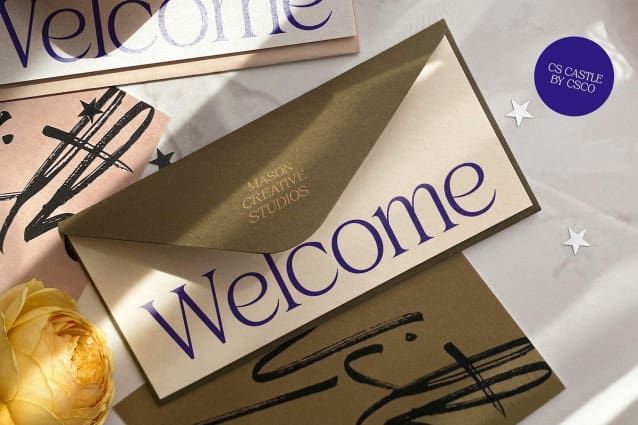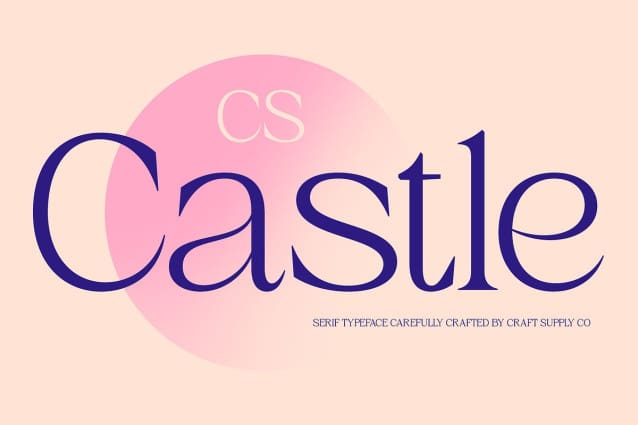
CS Castle Font
CS Castle Font is a modern serif font designed with elegant and graceful attributes. It features slim, refined serifs and clean, balanced letterforms that contribute to its sophisticated appearance. The subtle curves and delicate detailing enhance its beauty, making it a perfect choice for conveying class and charm.
Sophisticated and Refined Design The font’s slim serifs and well-proportioned letterforms create a sleek and sophisticated look. Its graceful curves and elegant detailing add a touch of refinement, making CS Castle ideal for high-end branding, luxury invitations, and editorial layouts.
Perfect for Upscale Branding and Editorial Design CS Castle excels in applications that require a sense of sophistication and exclusivity. Whether used in fashion magazines, upscale product packaging, or sophisticated marketing materials, this font provides a polished and charming appearance that elevates any design.
Versatile for Elegant and High-End Projects From luxury invitations to high-end branding, CS Castle offers a versatile and refined solution for conveying elegance. Its modern serif design ensures a classy and sophisticated look across a variety of projects, making it an excellent choice for those aiming to create a lasting impression with style.